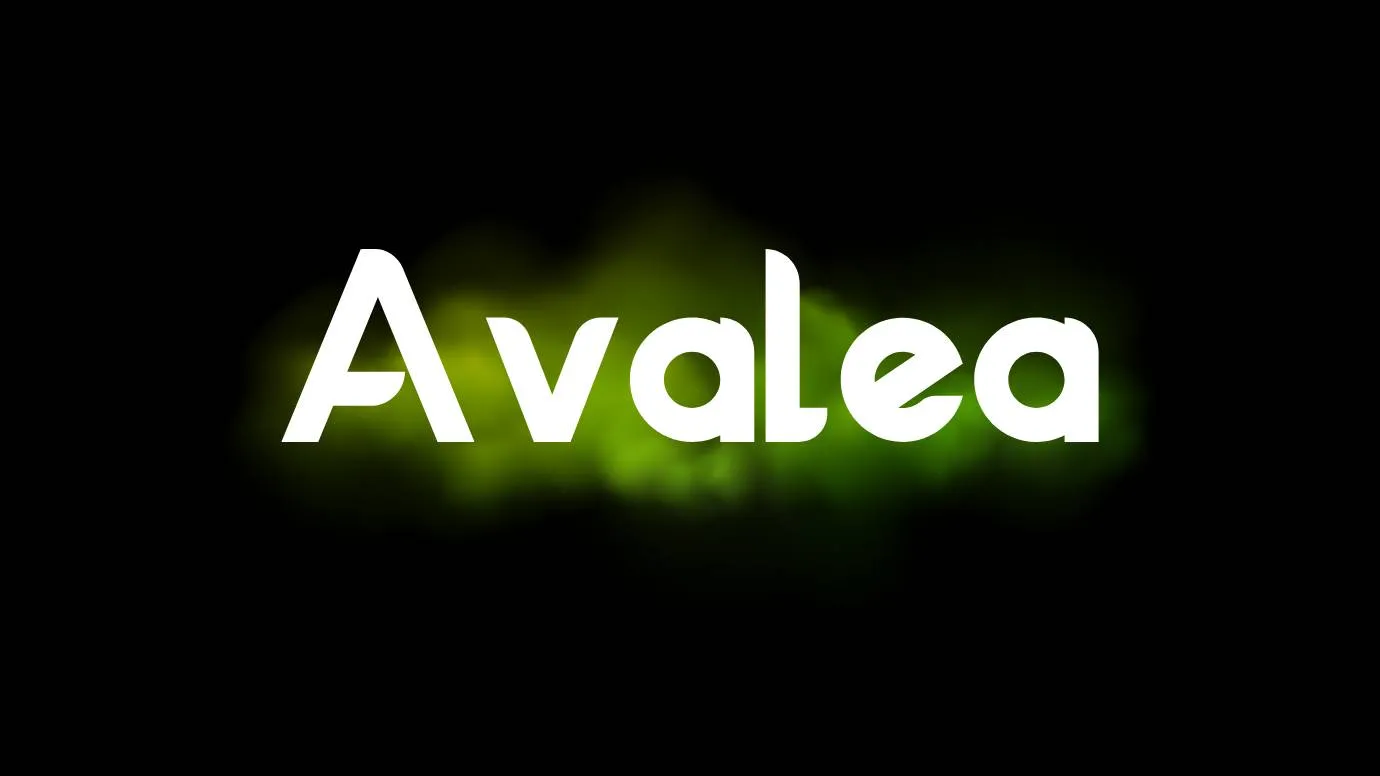
Avalea Font Family is a famous display typeface that has an elegant look. Setyaisiam is the designer of the Avalea typeface. The playful and modern structure of this font is so attractive and has many features.
This texture is also perfect for pairing with agker font which comes in the display category in the font family. This amazing font family has easily been specified for Google design purposes.
Avalea Font